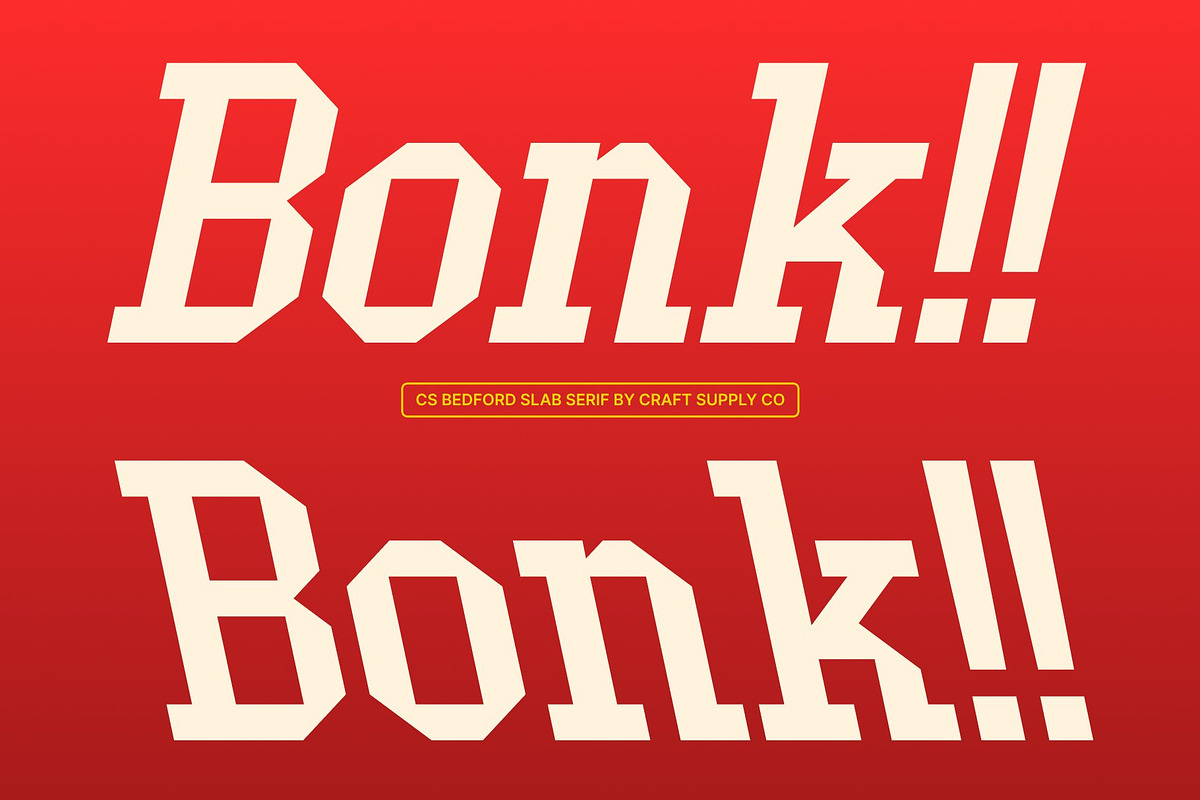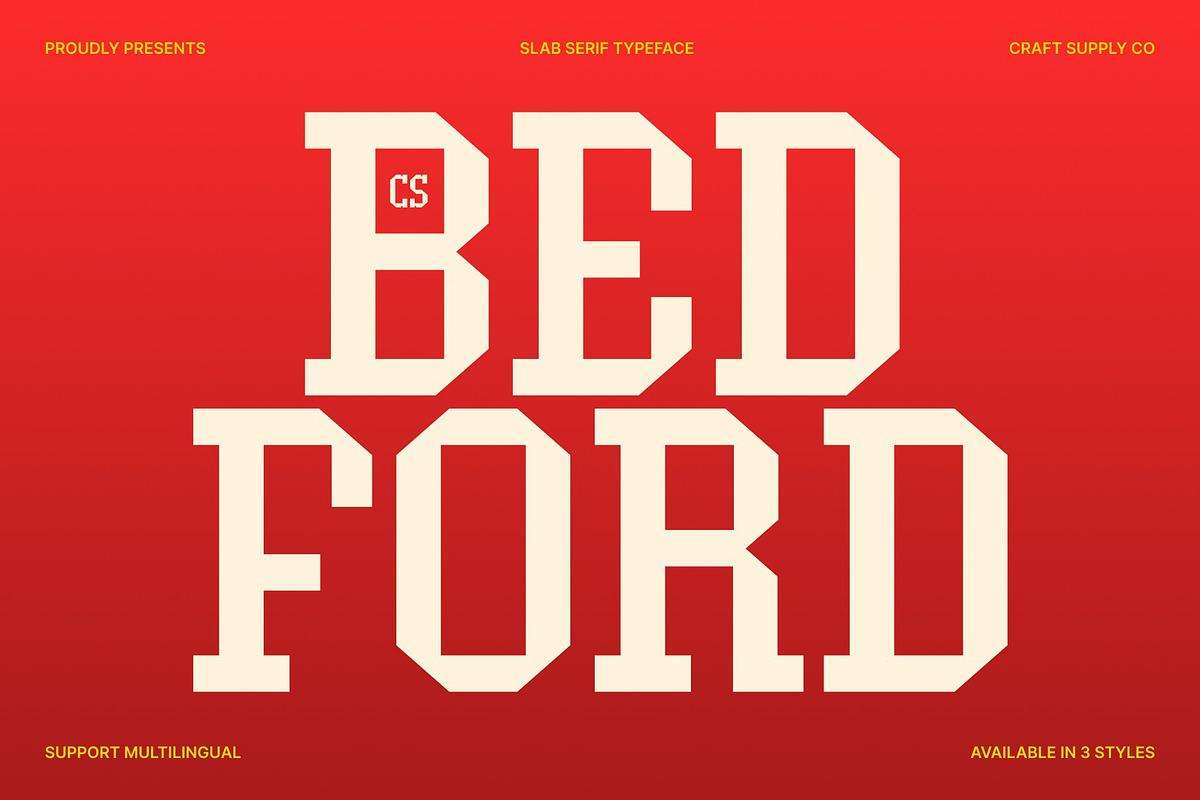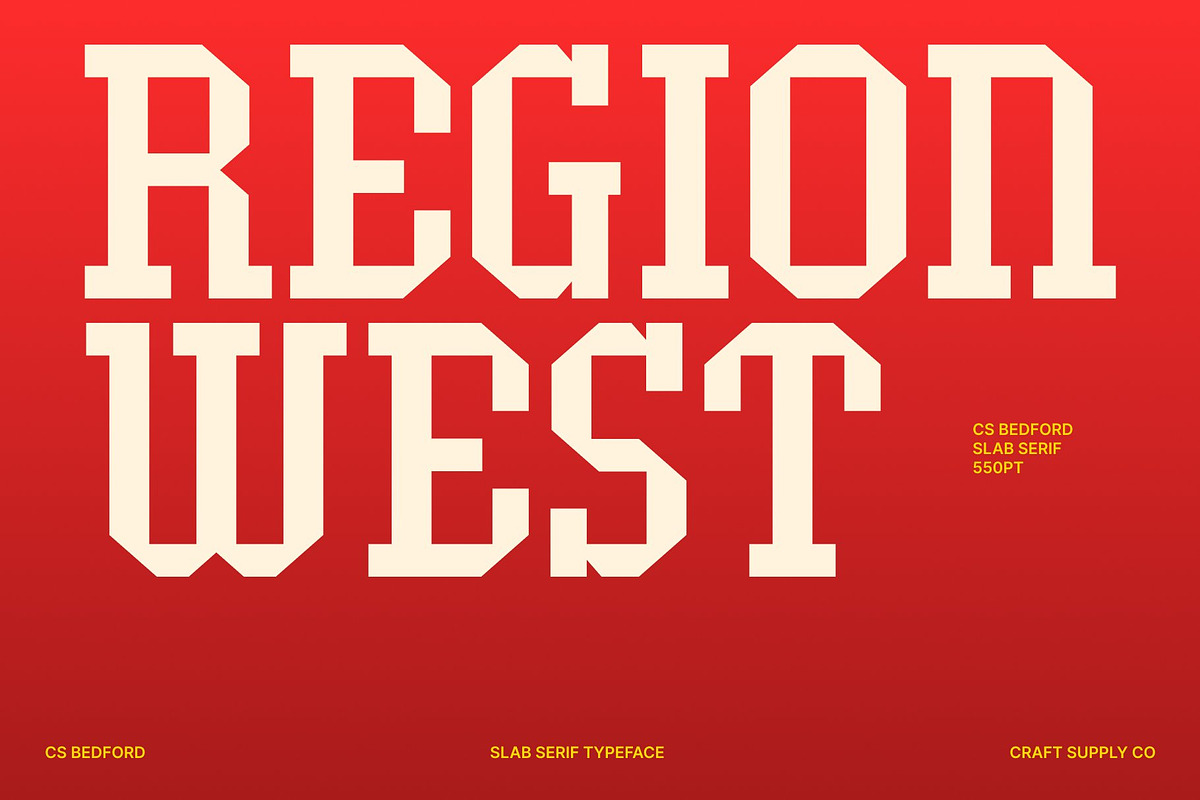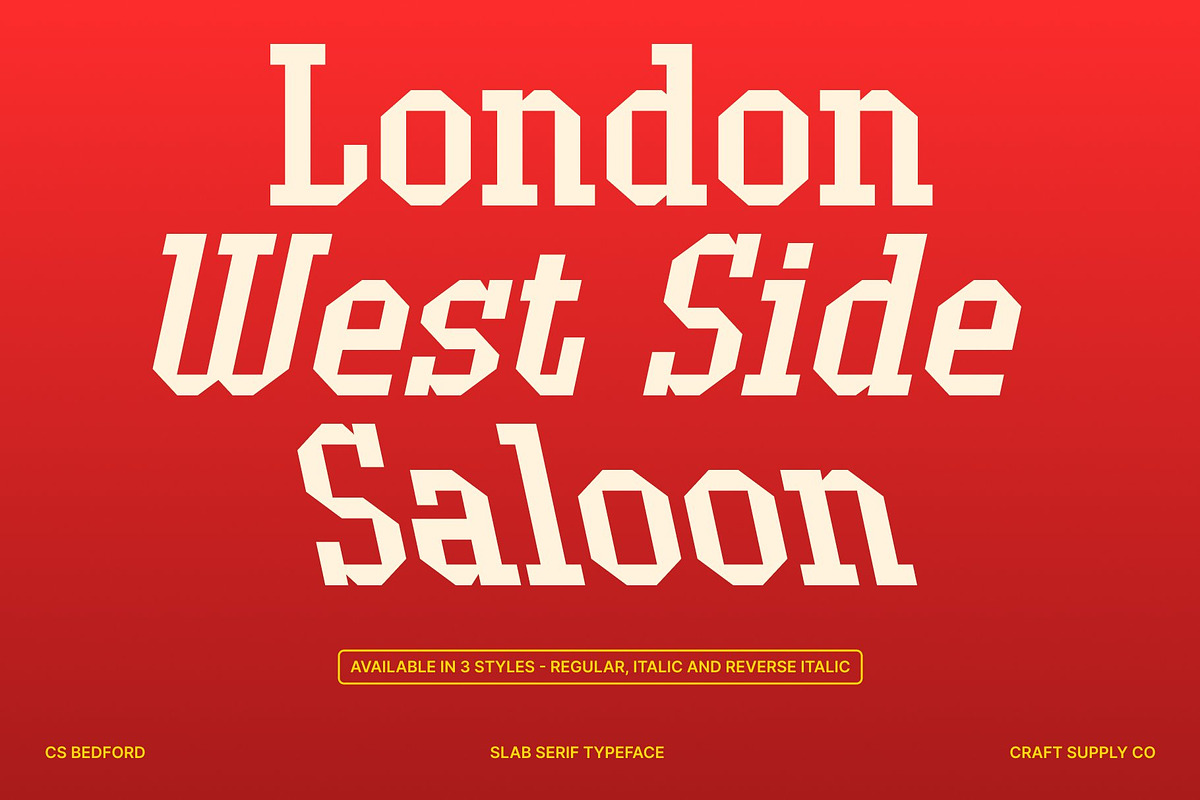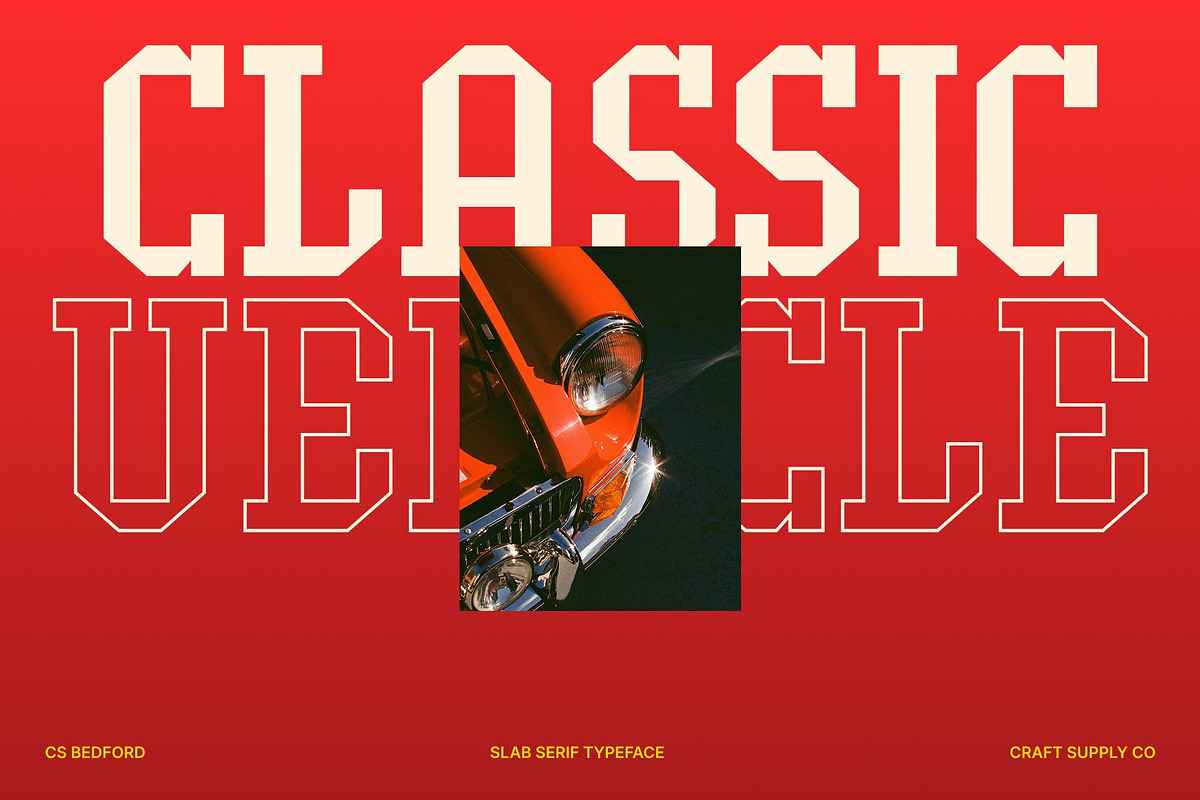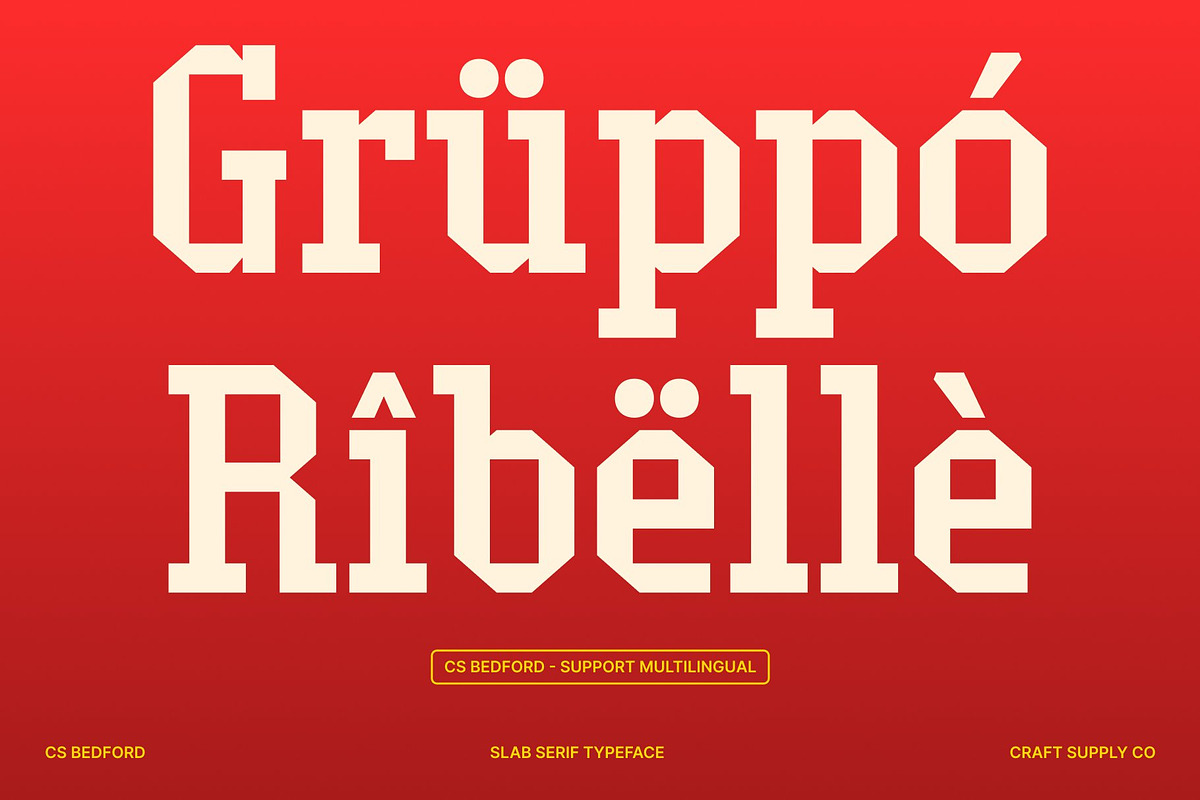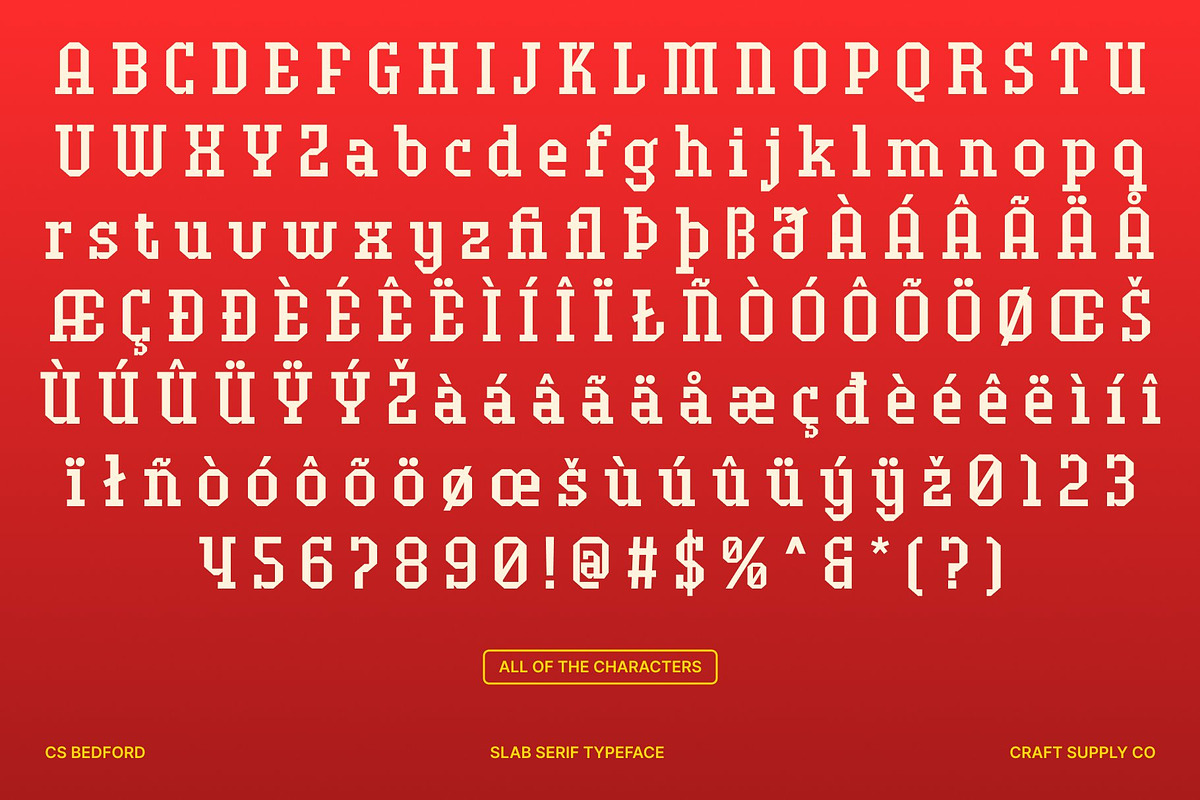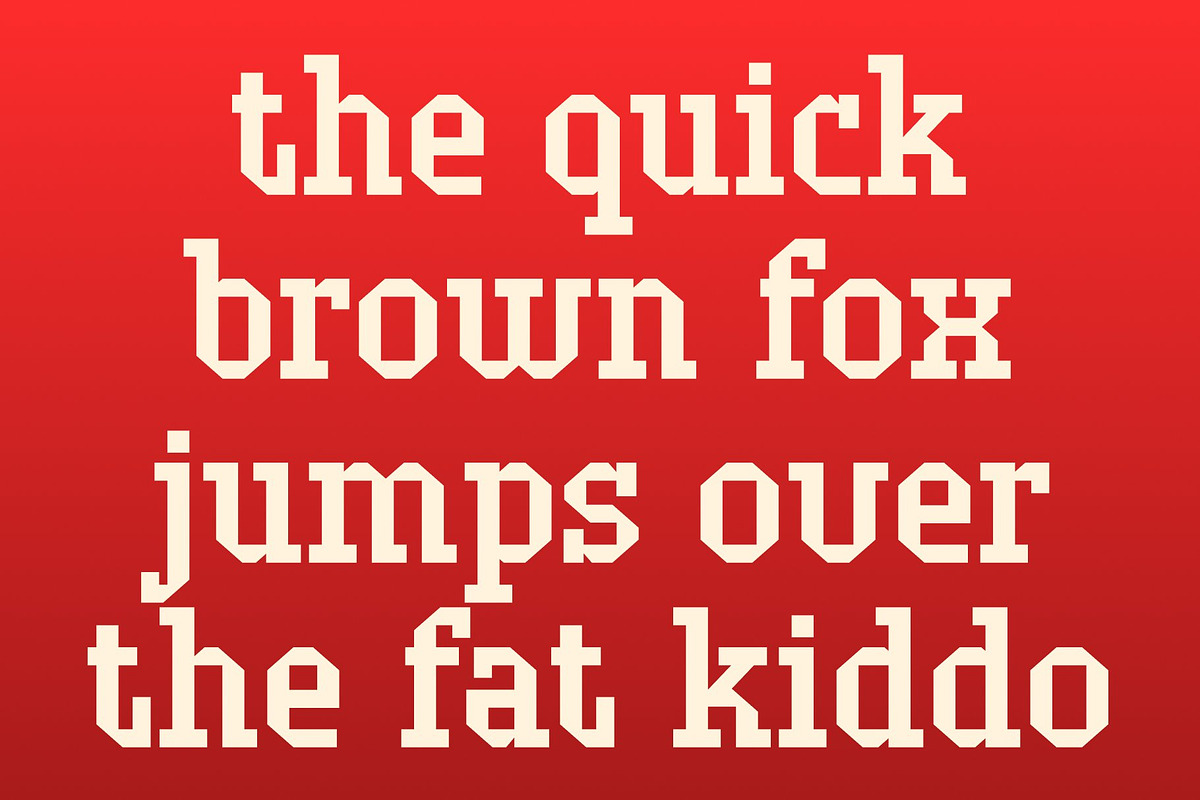
CS Bedford – Modern Slab Serif
CS Bedford – Modern Slab Serif Font: Futuristic, Industrial, and Assertive
Futuristic Slab Serif Design This is a modern slab serif font that blends futuristic aesthetics with strong, industrial-inspired forms. Its assertive letterforms convey confidence and modernity, making it ideal for projects that require a visually striking presence. The geometric and structured design ensures clarity and impact, even at large sizes, allowing your message to stand out with authority.
Perfect for Headlines and Posters With its commanding structure, excels in headlines, posters, advertisements, billboards, and logos. The font’s clear, sturdy forms deliver maximum readability while adding a contemporary edge. Its futuristic industrial style ensures designs feel forward-thinking, dynamic, and highly professional.
Industrial and Visual Impact The industrial influence of gives it a strong, architectural feel, while the slab serif structure adds weight and stability. This combination creates a visually engaging and memorable typeface that communicates power and modern sophistication. It is especially effective for brands, events, or editorial projects that want to make a bold visual statement.
Versatile for Modern Branding This font is a highly versatile across print and digital applications. From corporate branding to promotional materials and large-format signage, its modern slab serif forms provide a robust, visually compelling presence. Designers can leverage its futuristic and industrial aesthetic to create impactful designs that leave a lasting impression on any audience.
- CS Bedford Regular
- CS Bedford Italic
- CS Bedford Reverse Italic